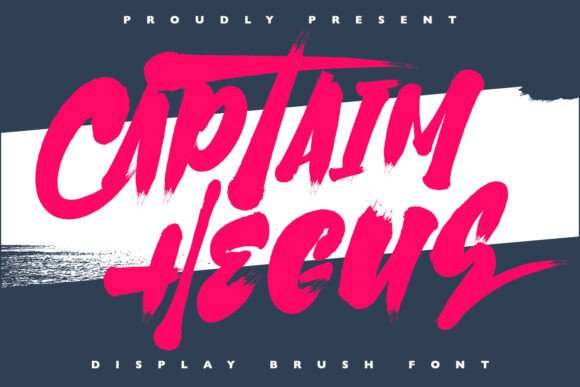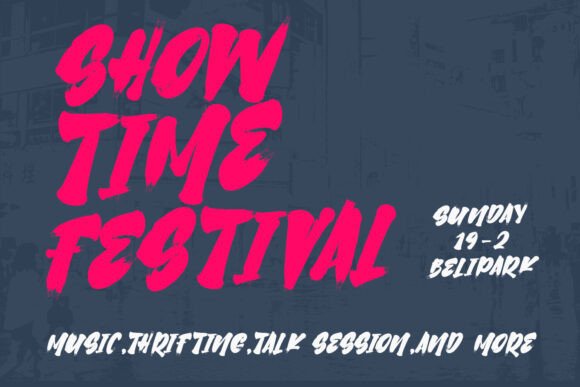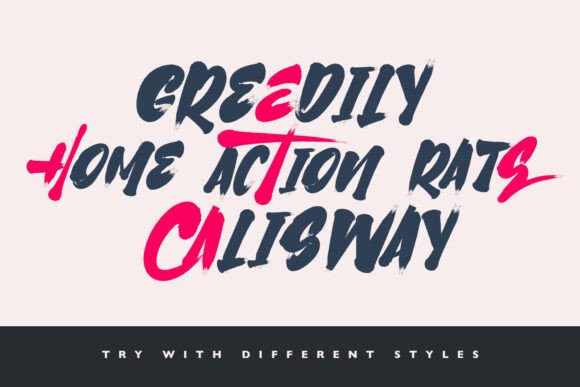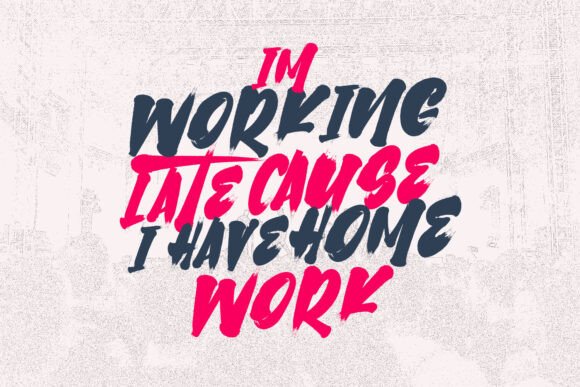
Captaim Hegus Font
About the Captaim Hegus Font
Make a bold statement with Captaim Hegus Font, a powerful and memorable font. Captain Hegus is a bold and energetic brush font with unstoppable attitude. Designed to stand out, this display typeface features dynamic brush strokes and a rebellious flair, making it ideal for music posters, streetwear branding, sports titles, or any design that needs a high-impact punch. With its raw texture and powerful flow, Captain Hegus commands attention wherever it appears.
Captaim Hegus Font Usage Examples
Captaim Hegus Font Example